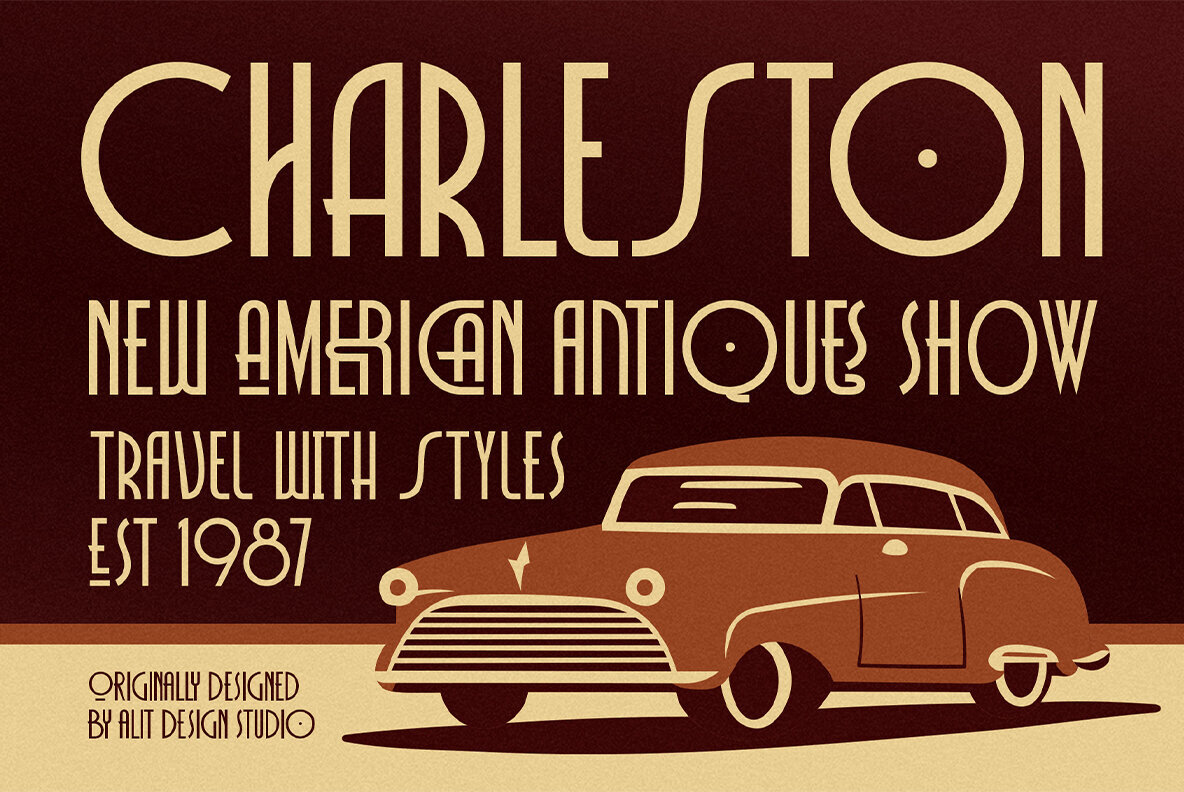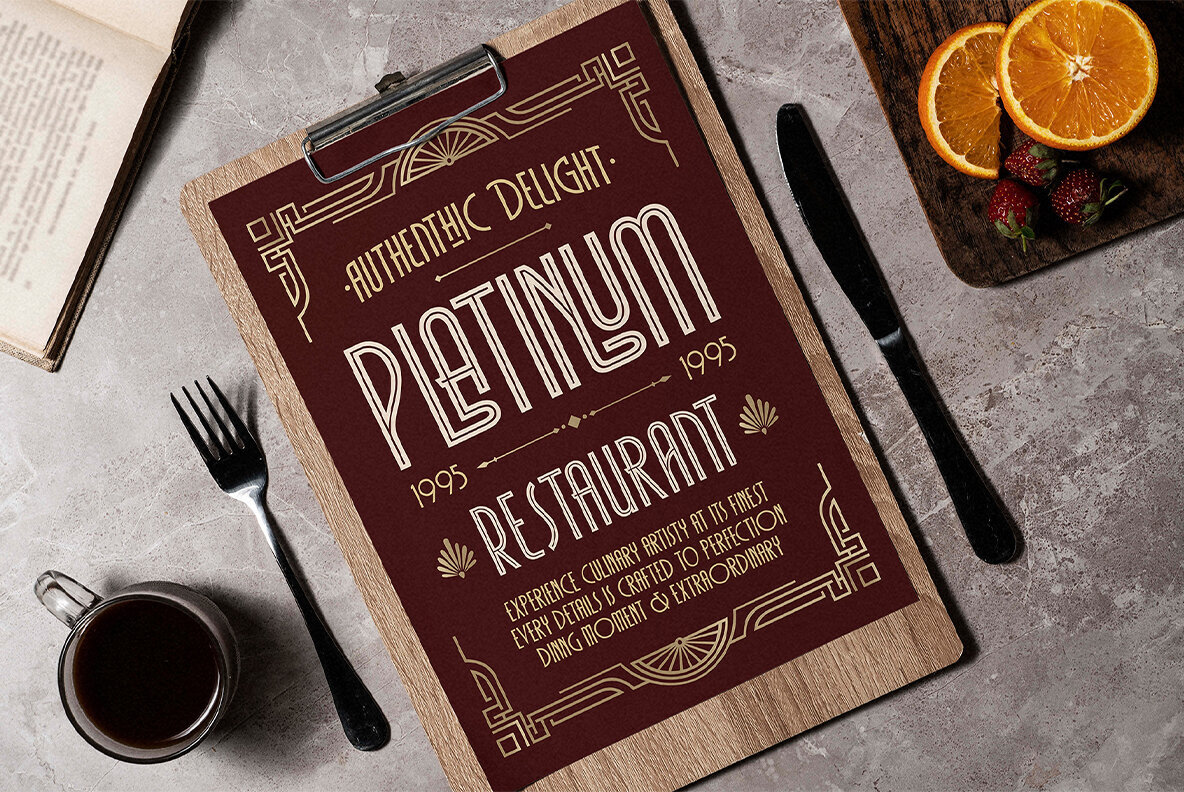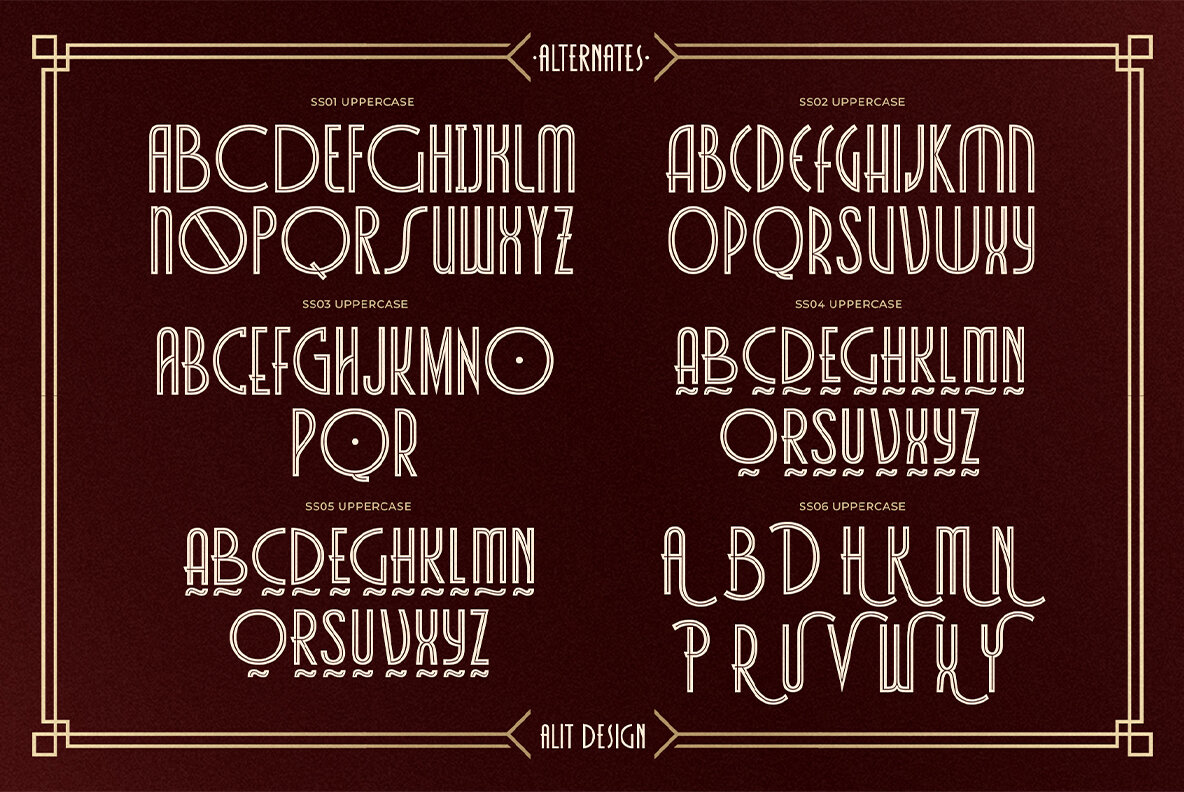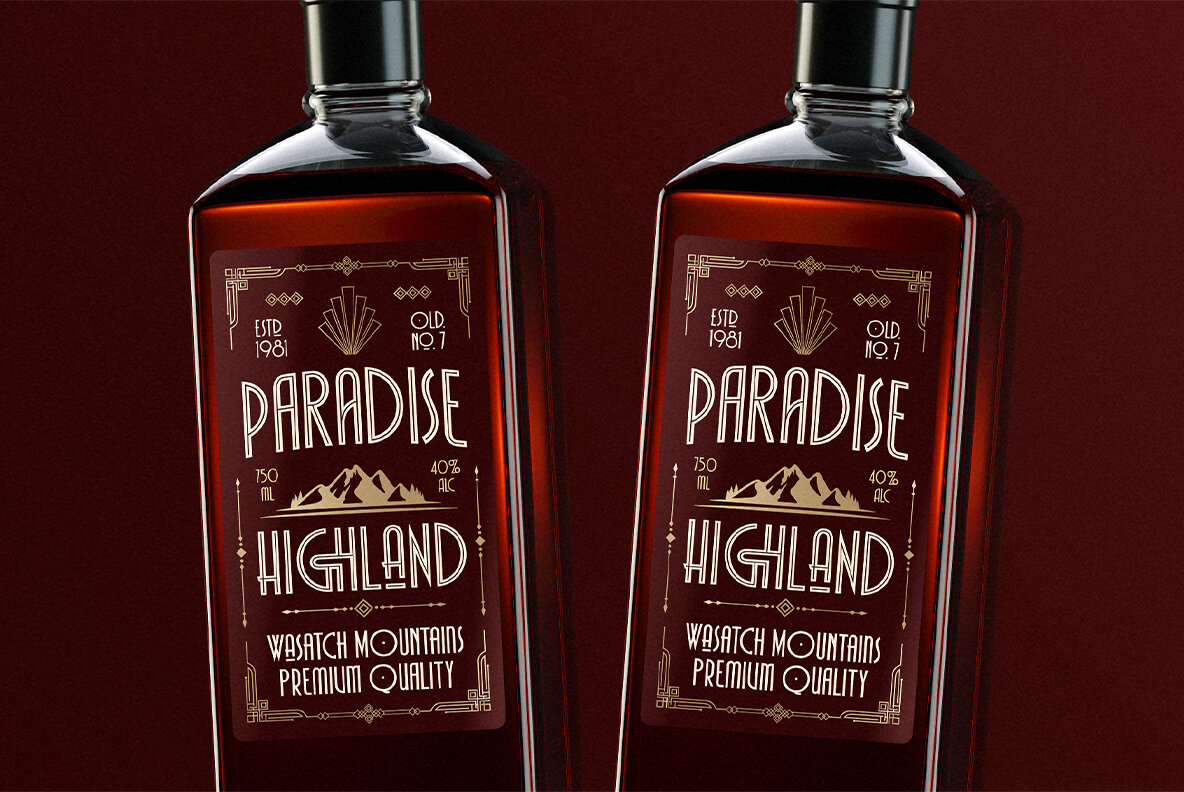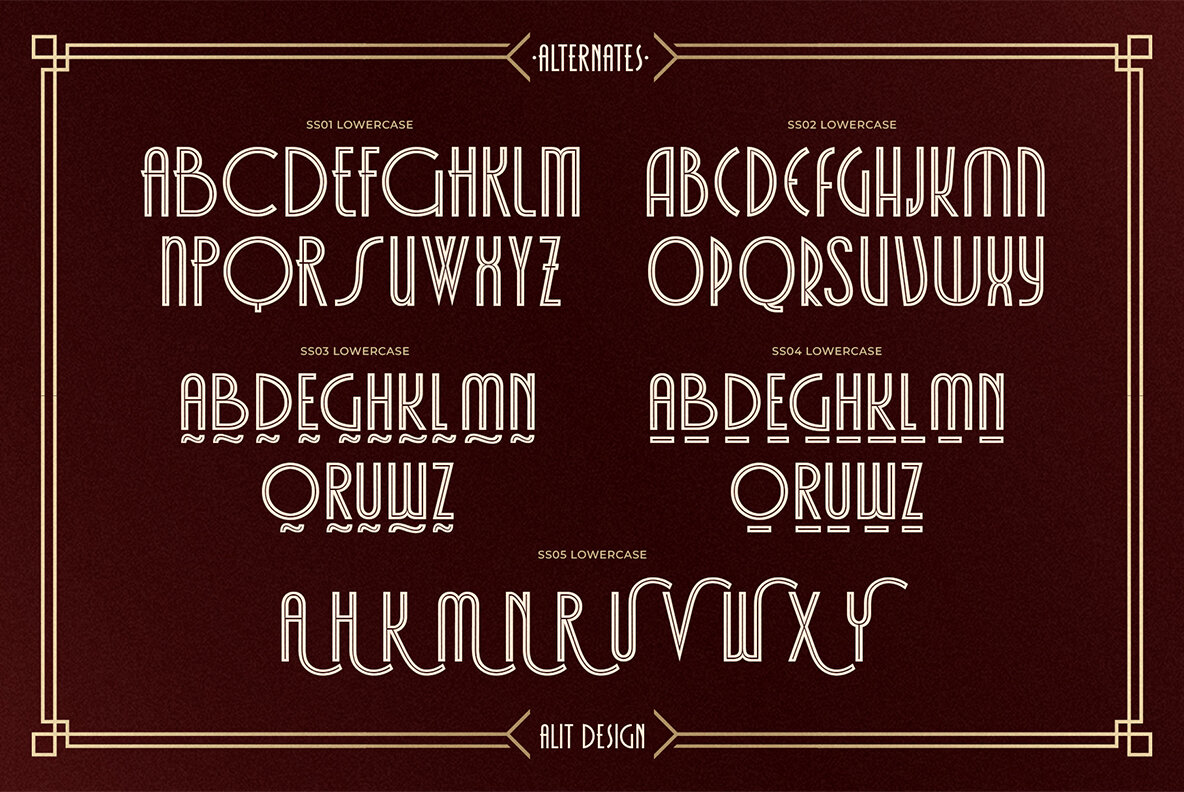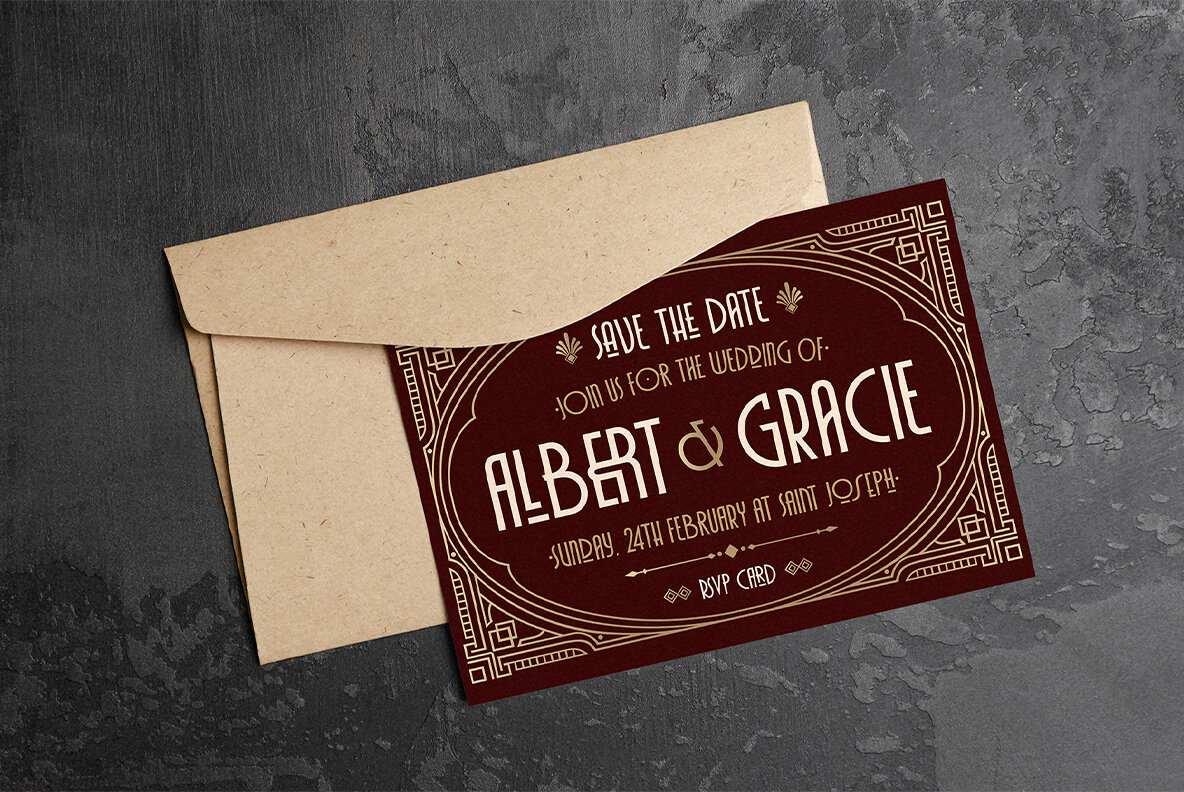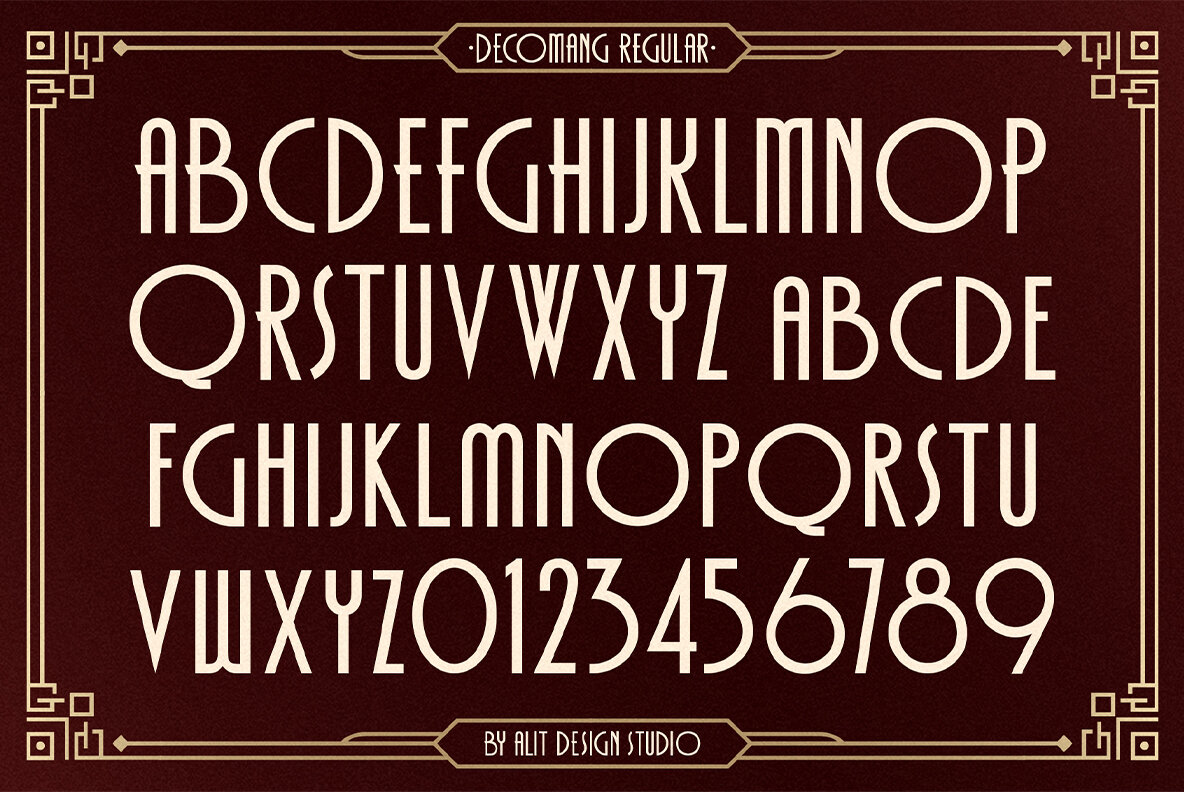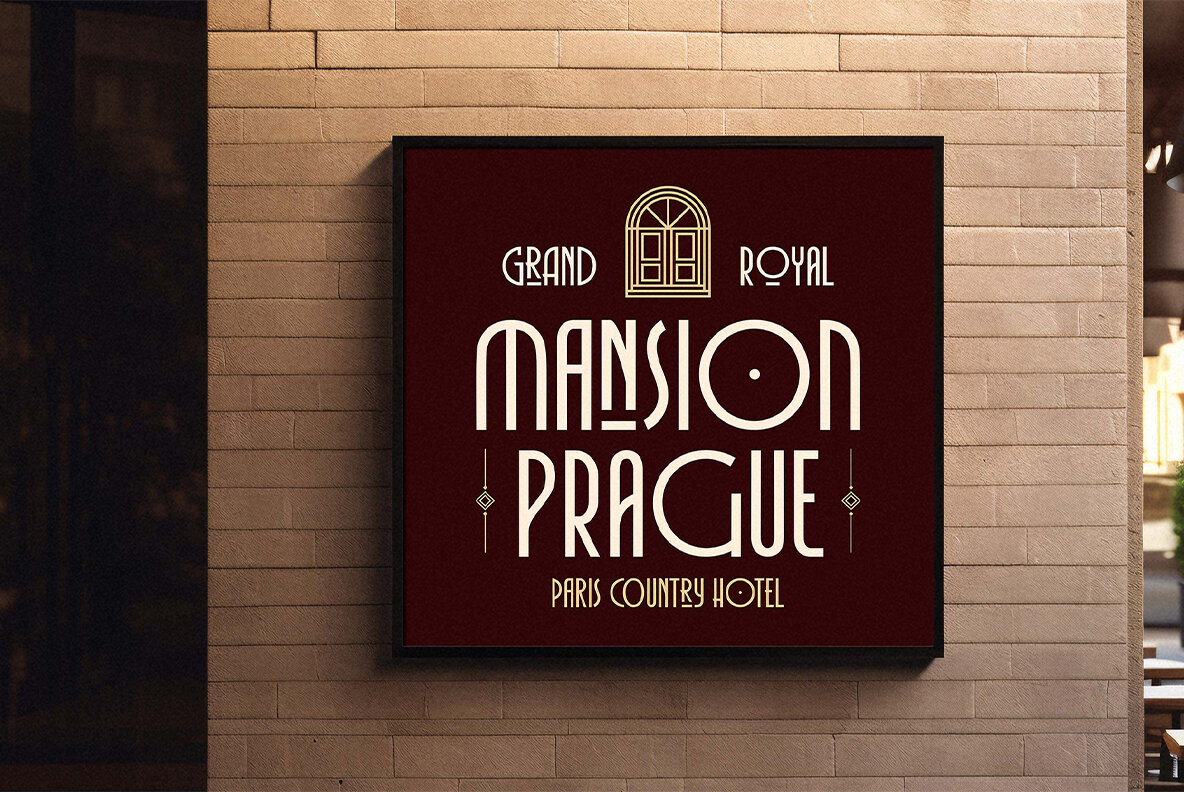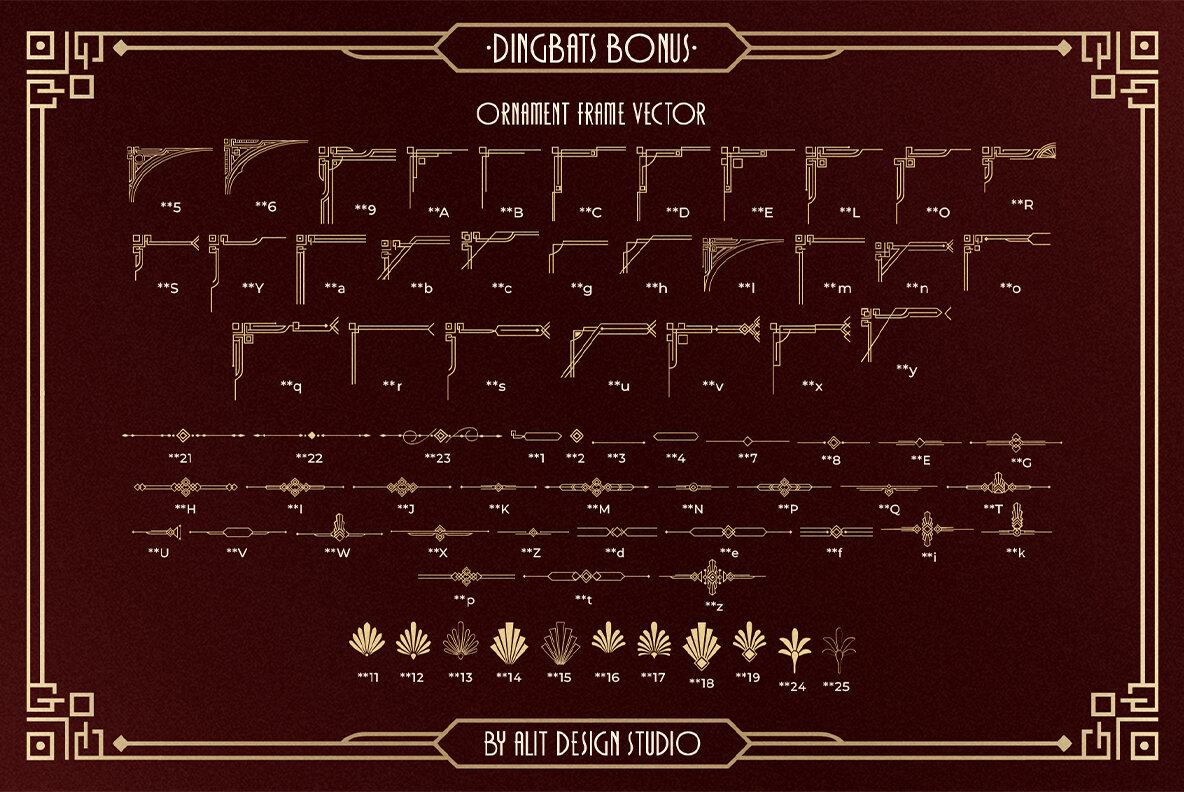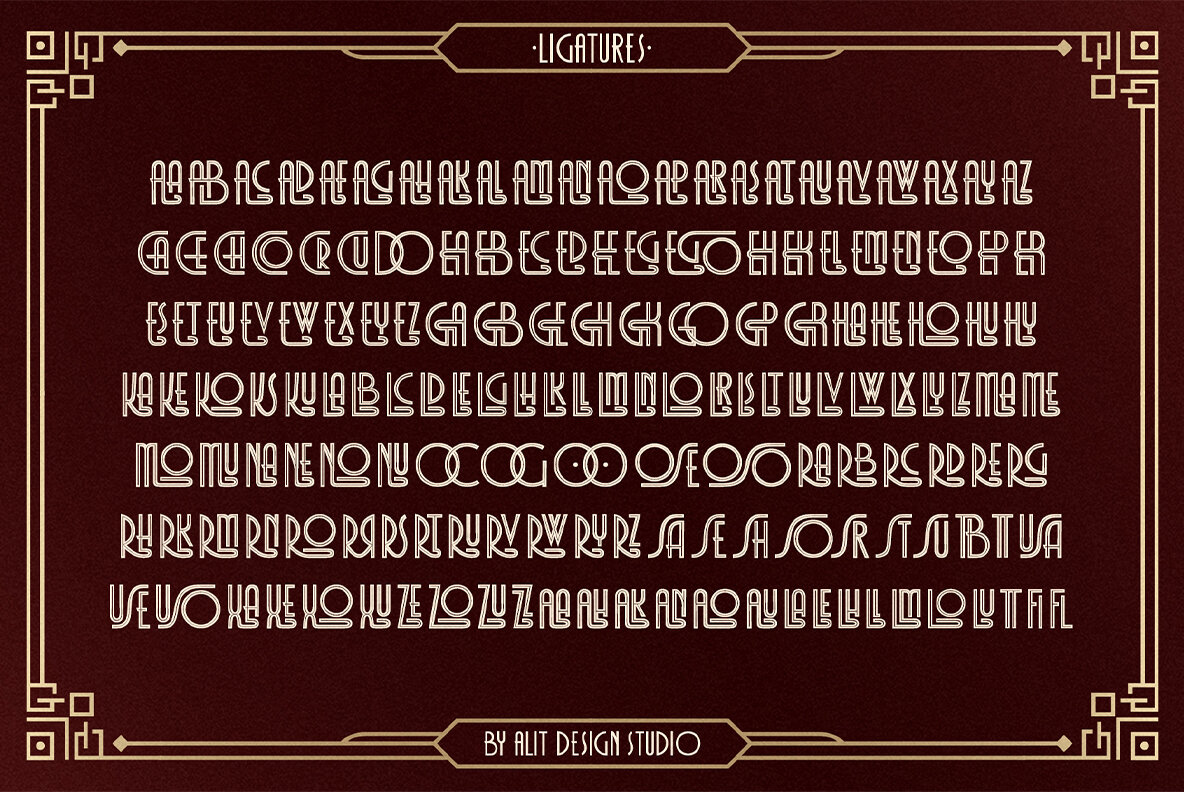
Decomang Font
Decomang Art Deco Typeface Step into the glitz and glamour of the Art Deco era with Decomang, a versatile and elegant typeface that brings the bold sophistication of the 1920s to your designs. Perfect for branding, invitations, posters, and editorial projects, this typeface combines geometric precision with dynamic flair. Font Features Two Body Styles: Extensive Character Set: Stylistic Alternatives: Ligatures: Swashes: PUA Unicode: Multilingual Support: Dingbat Collection: Why Choose Decomang? Let your creativity shine with Decomang—the epitome of Art Deco elegance!
Choose between a solid plain body for clean, timeless elegance, or a body with two dynamic lines for an intricate and stylish aesthetic.
Boasting 900 characters, Decomang offers unmatched flexibility to craft any text with finesse.
A variety of alternatives ensures that every design can stand out while maintaining a cohesive Art Deco vibe.
Create seamless connections between letters for a polished, handcrafted look.
Add a touch of dramatic flair with beautiful swash options for an extra layer of sophistication.
Decomang covers an array of languages, ensuring your designs are universally accessible.
Includes 73 custom dingbats, perfect for adding decorative accents and embellishments inspired by Art Deco motifs.
Decomang Art Deco Typeface is a blend of historical charm and modern versatility. Whether you're designing luxurious logos, elegant wedding invitations, or dynamic advertisements, this typeface ensures your work leaves a lasting impression.